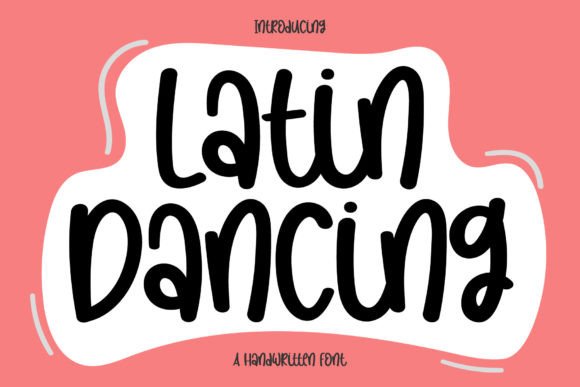
Prepare yourself to ignite your designs with the Latin Dancing Font – a vivacious display font that exudes free-spirited charm! This enchanting font is a masterpiece of artistry, flowing with the grace of a dancer and spreading joy through its every letter. Latin Dancing is an open invitation to let your creativity sway freely, expressing your unique style with an exuberant touch.
With Latin Dancing, you'll embark on a typographic adventure that knows no boundaries. Its playful personality is equally at home on lively backgrounds or as a striking headline that commands attention. Let your words take center stage, infused with the infectious energy of Latin Dancing. Dare to be bold and let your designs burst into life with this dynamic font that's sure to make a lasting impression.
More than just a collection of letters, Latin Dancing is a gateway to a world of boundless creativity. Its versatility shines whether you're crafting captivating social media posts, designing eye-catching posters, or creating logos that leave an indelible mark. Transform mundane designs into captivating masterpieces with the spirited essence of Latin Dancing. Unleash your inner artist and let the world witness your typographic prowess!